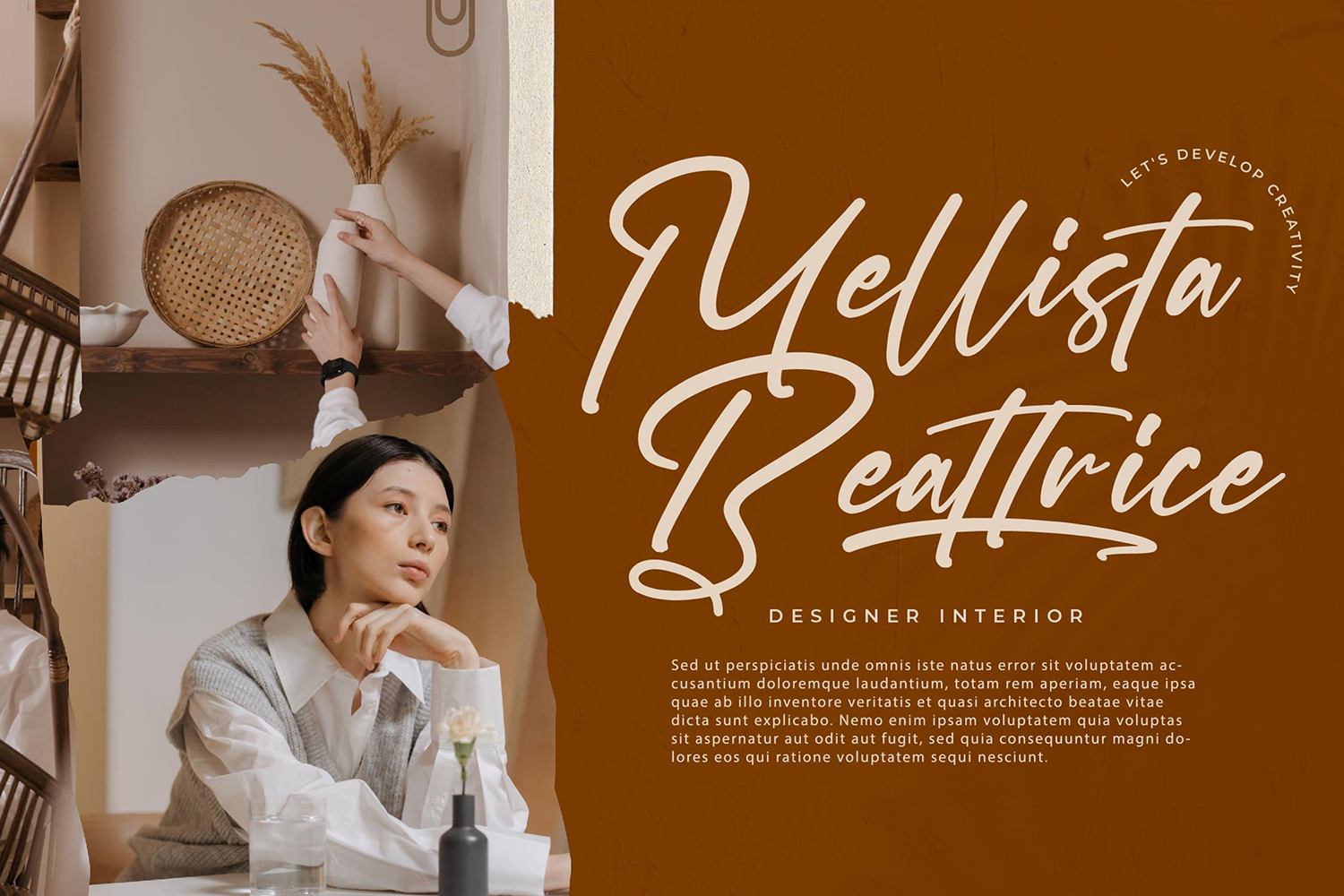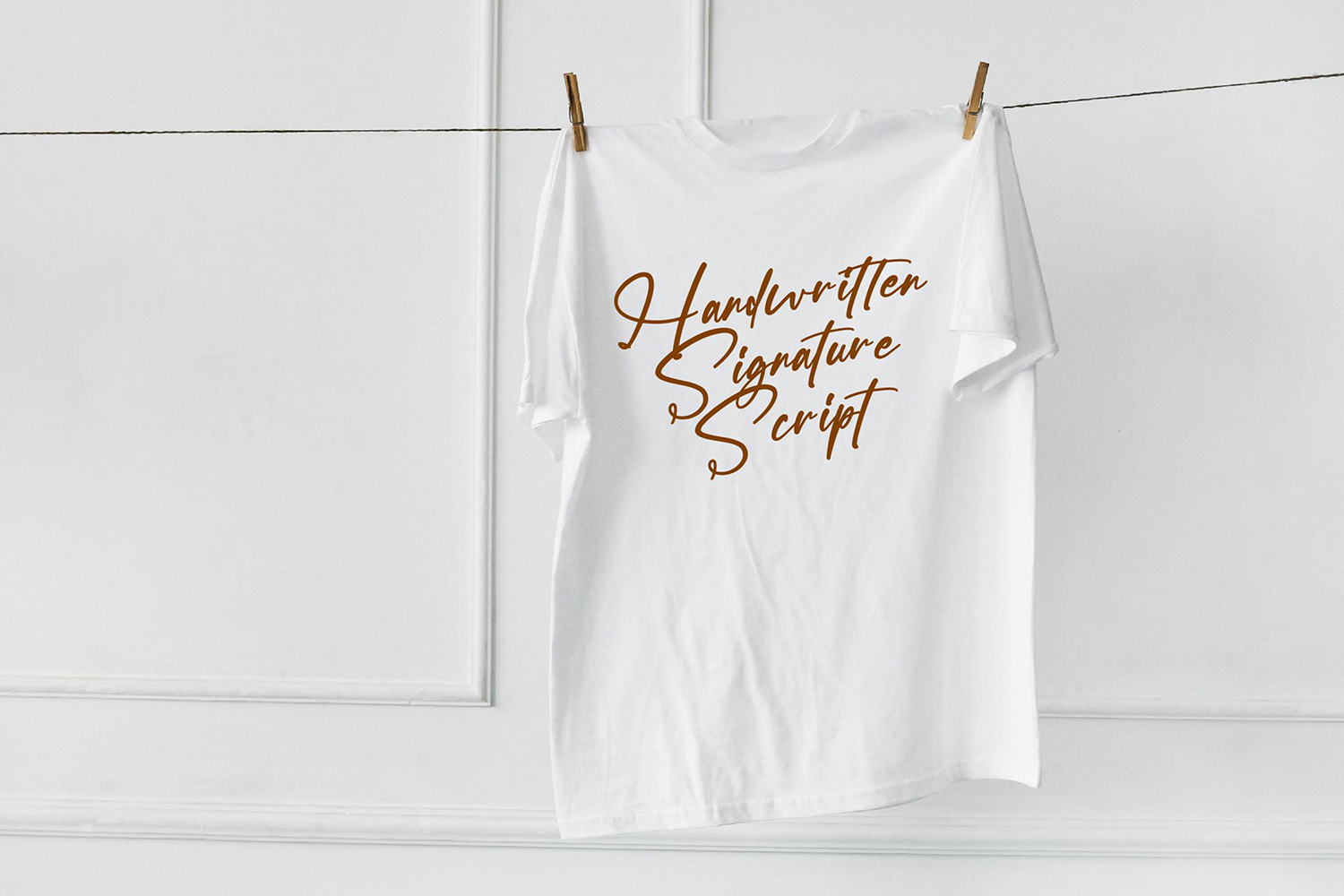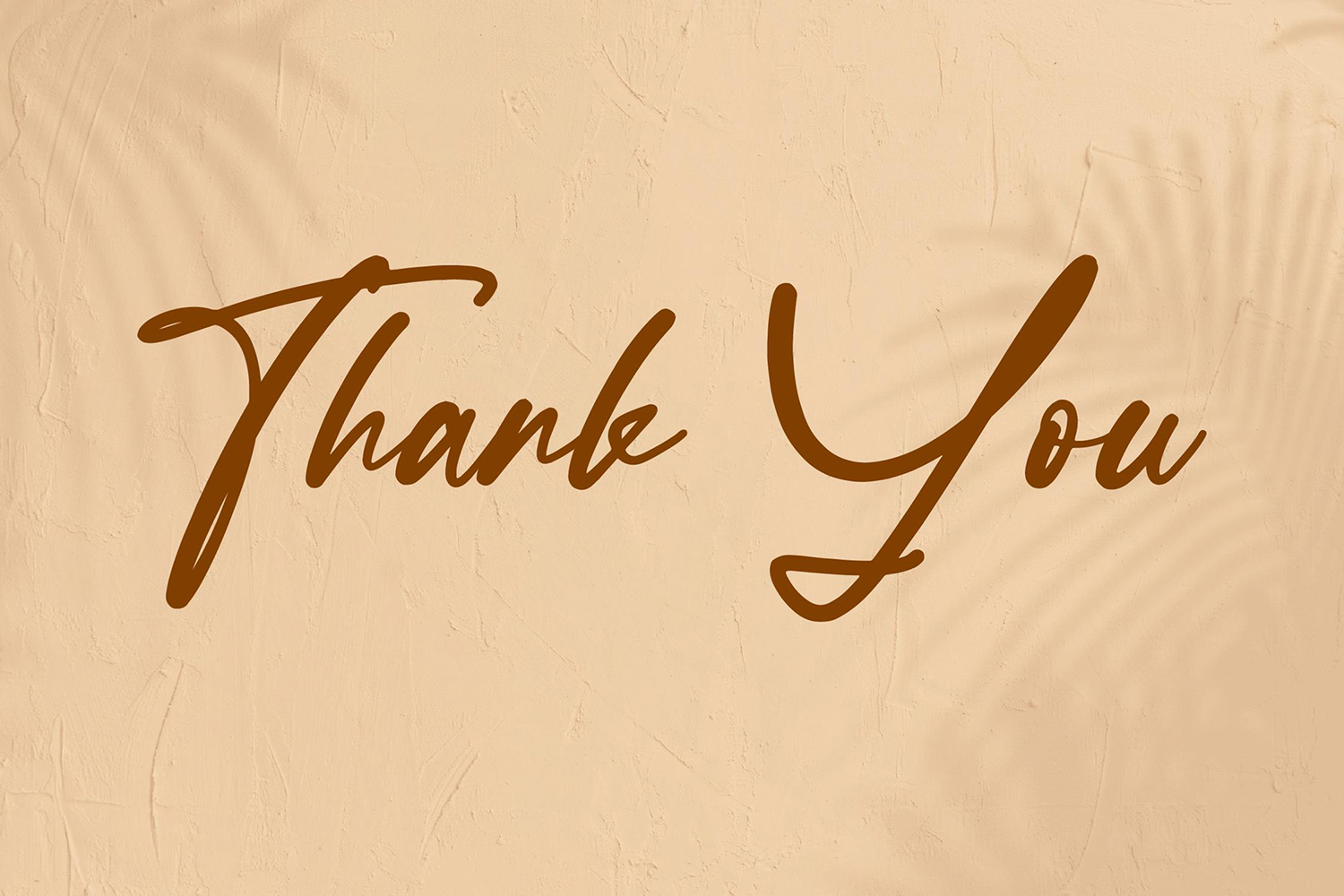
Andolamtte Free Font
Andolamtte Free Font is a handwritten signature script. This lovely font is suitable for logos, branding projects, homeware designs, product packaging, mugs, quotes, posters, shopping bags, t-shirts, book covers, name cards, invitation cards, greeting cards, labels, photography, watermark, and special events.